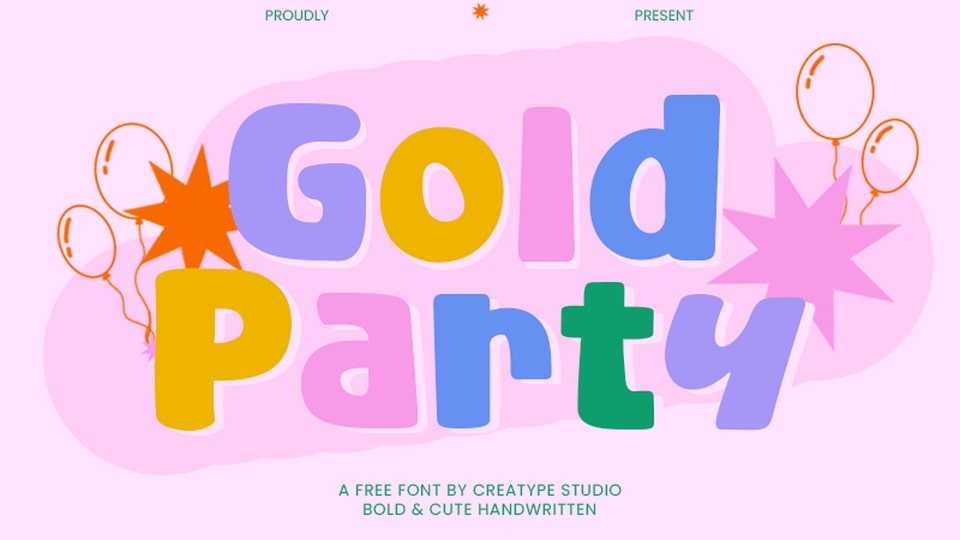
Download Gold Party font, a bold, friendly, and quirky hand-crafted typeface that blends strength with charm, chunky, solid letters and playful imperfections.